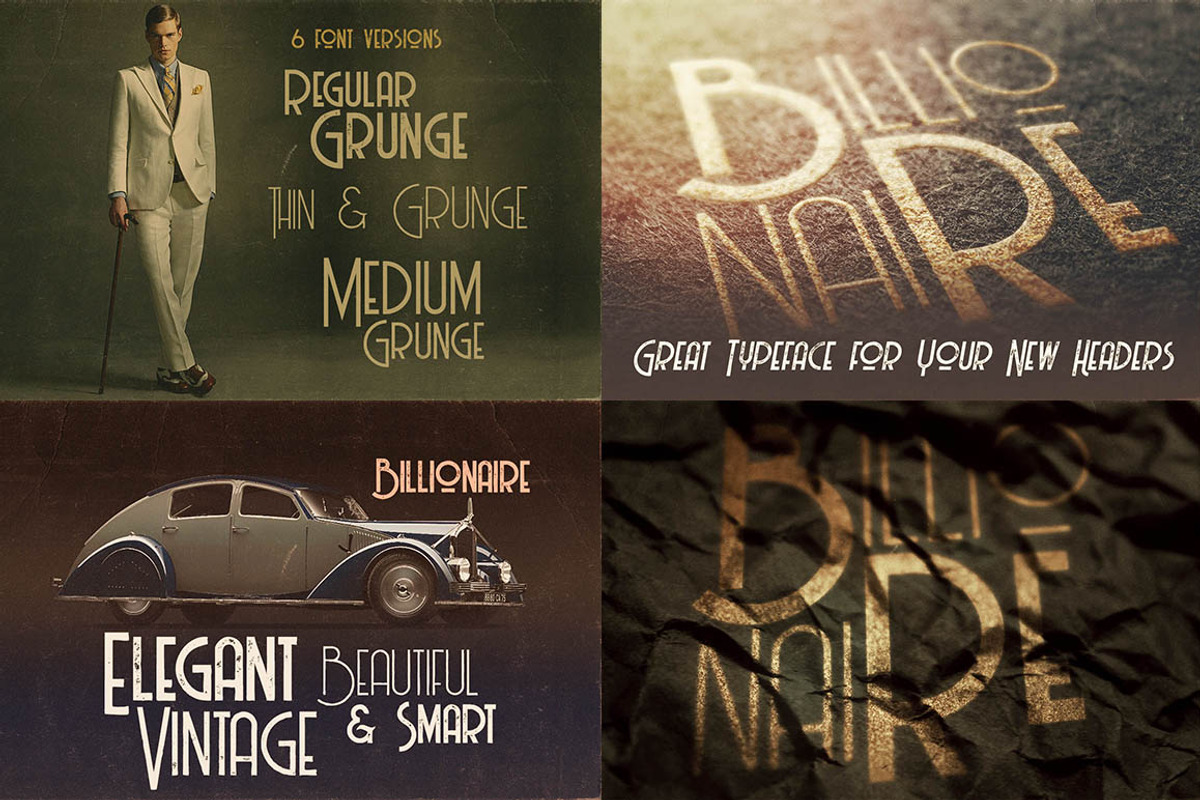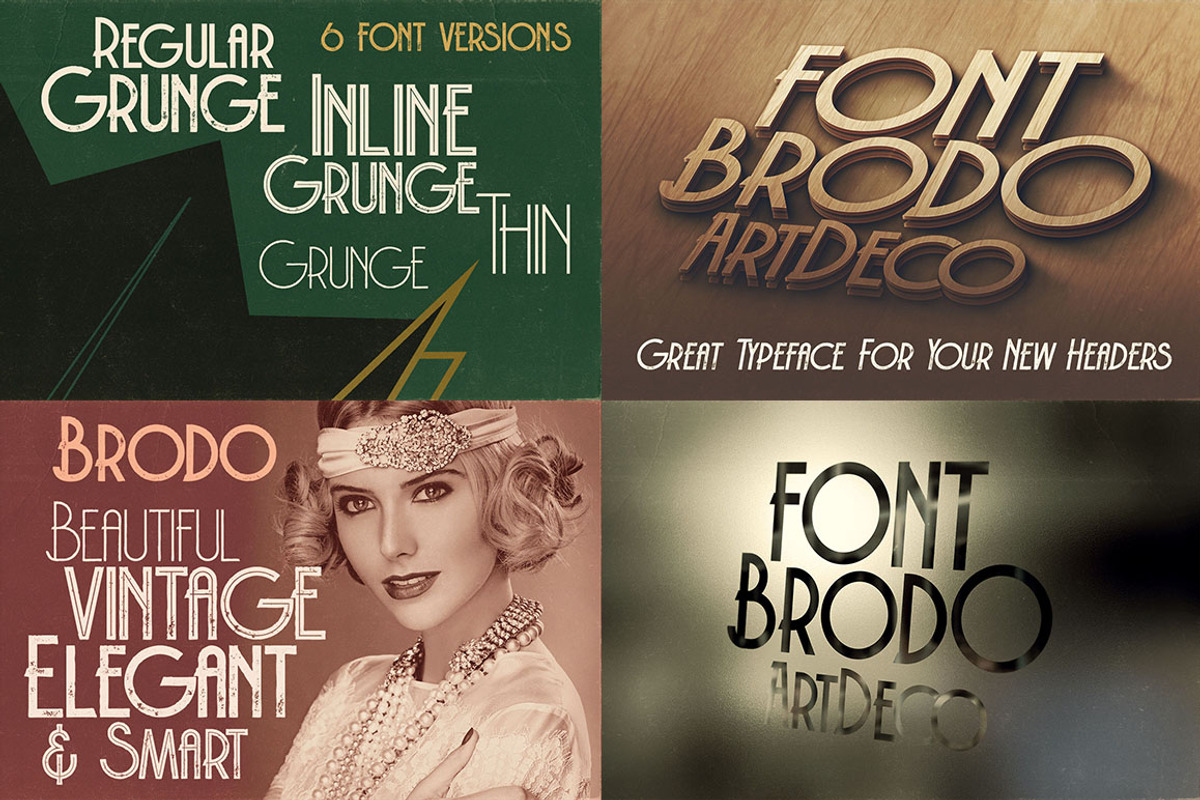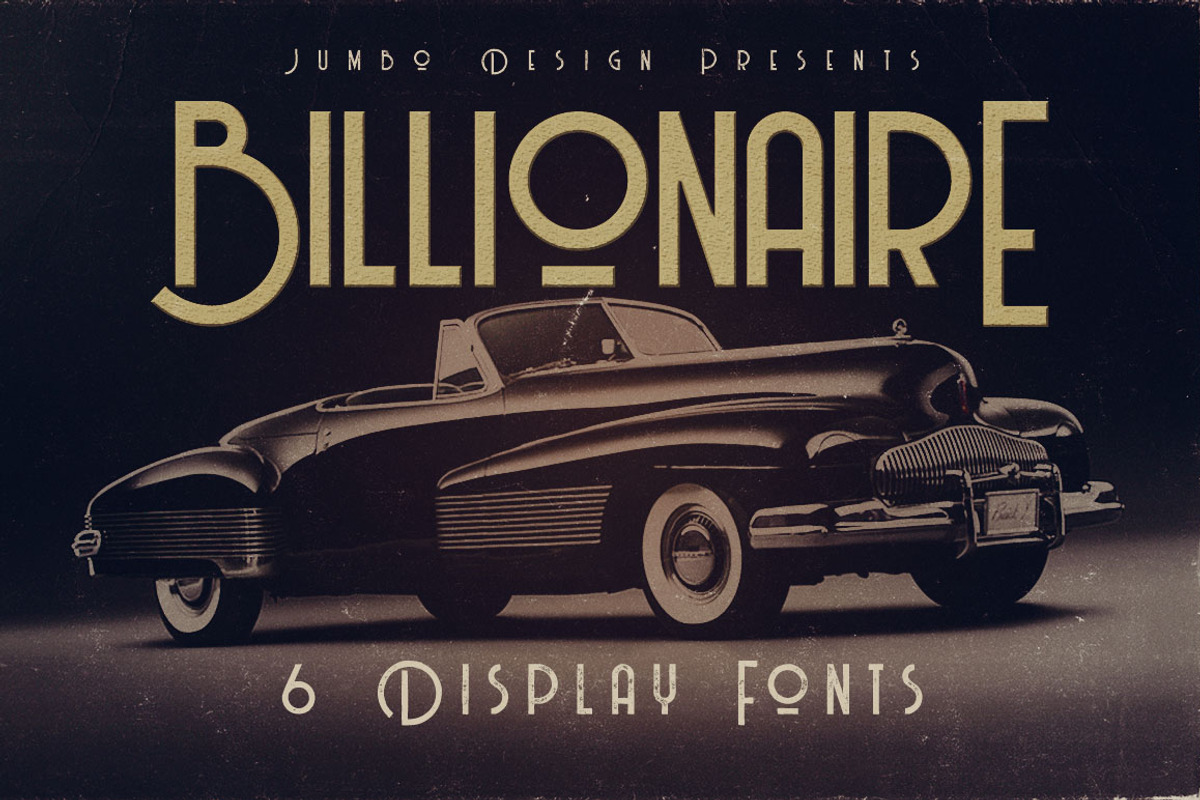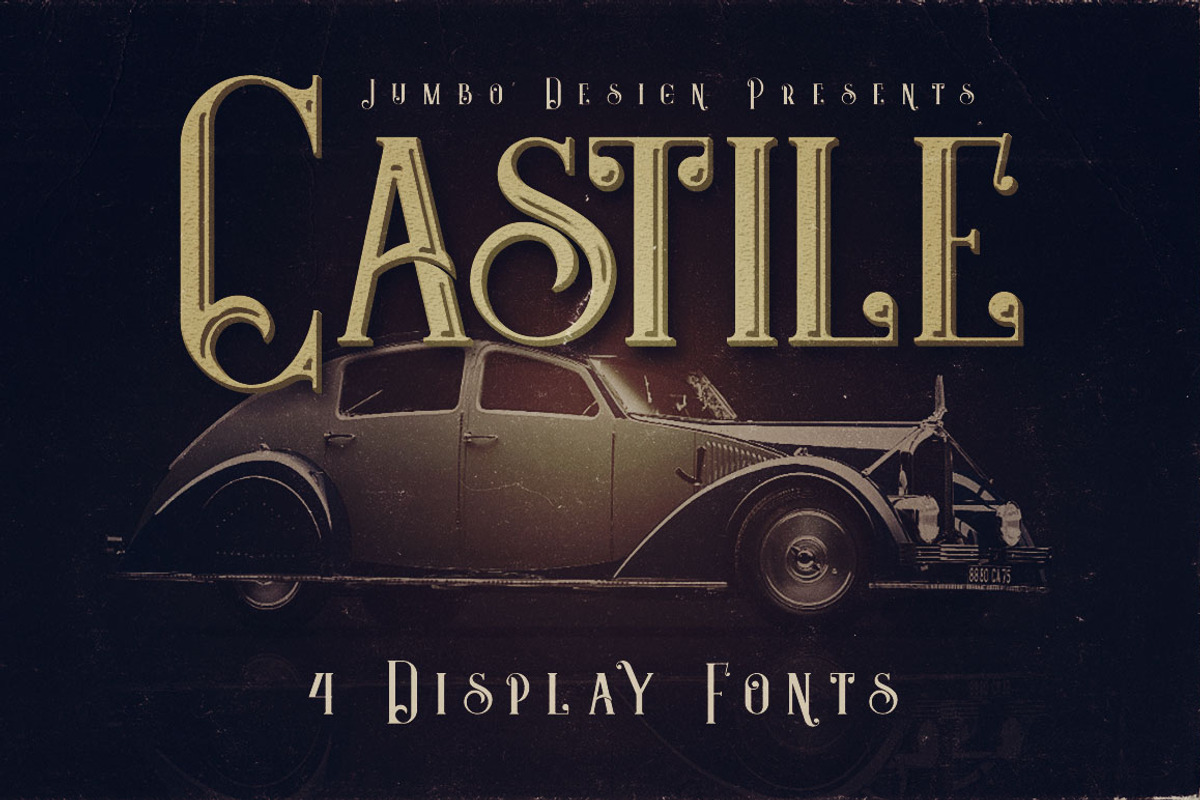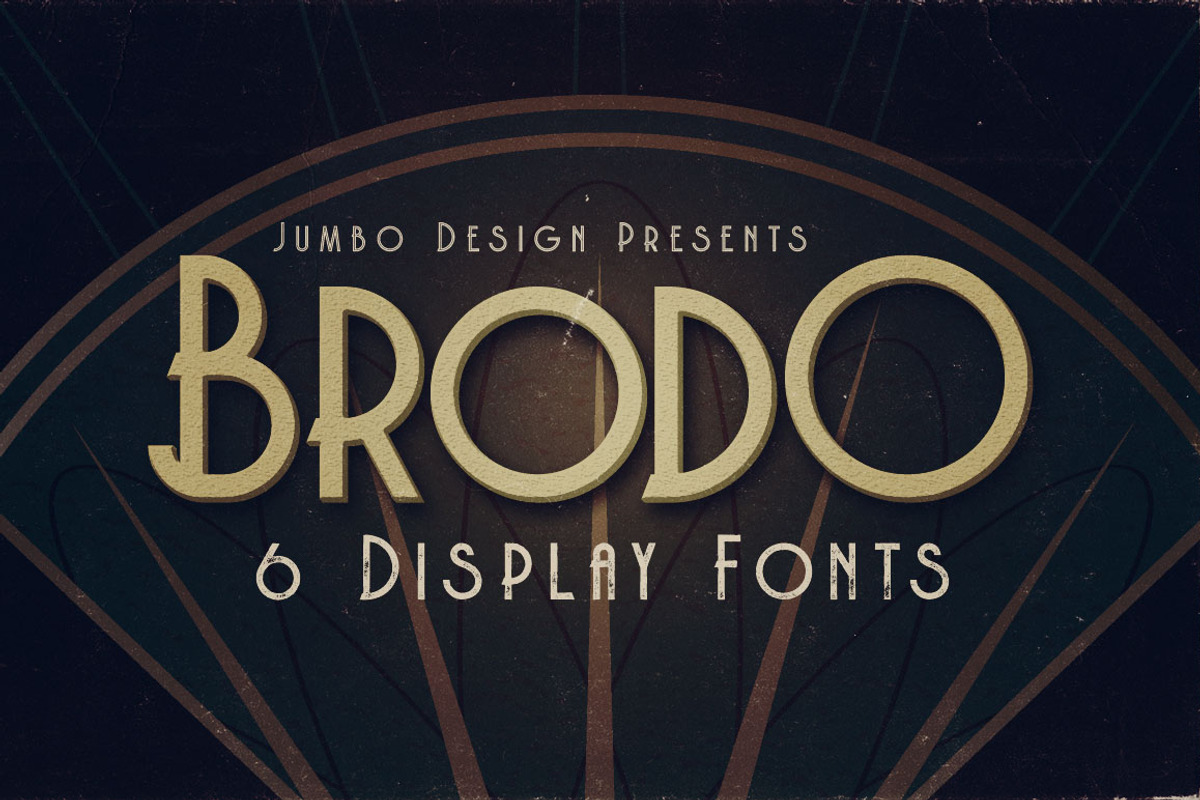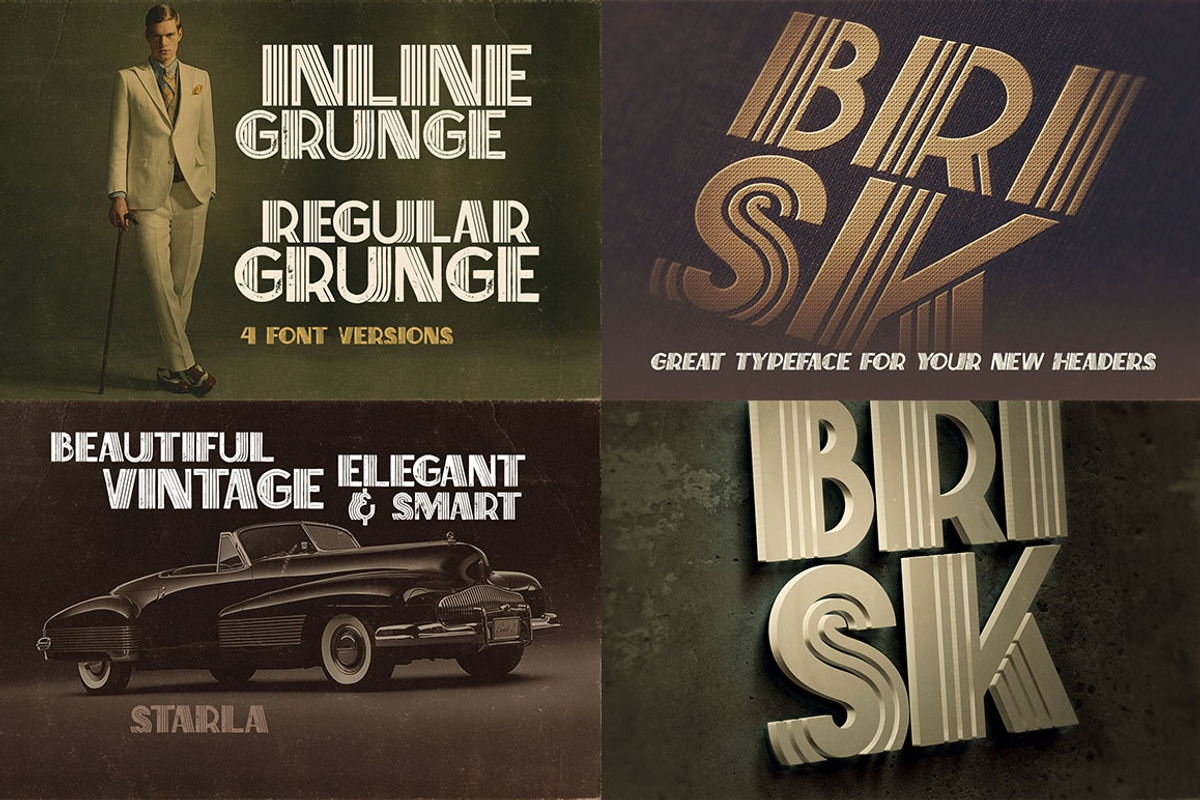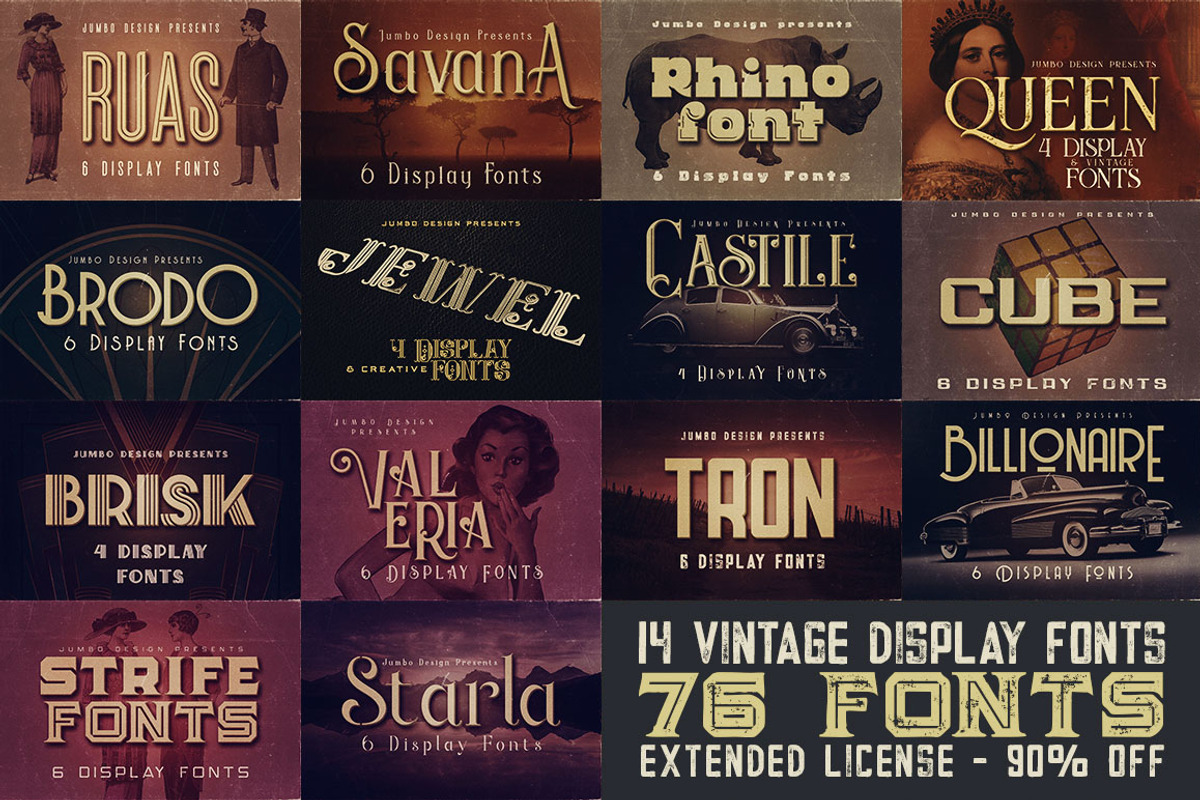
SALE 14 Display Fonts - 76 Fonts
Retro or vintage style display fonts for your new projects. Great for grunge/retro/fantasy/vintage projects like: branding, corporate identity, print designs, headers, logo designs, t-shirt designs...
14 fonts in this bundle: